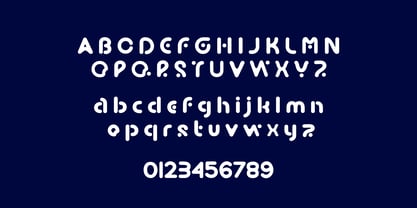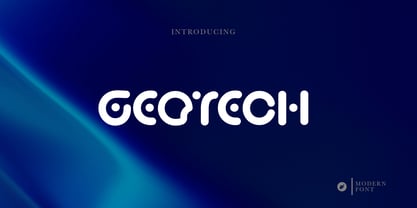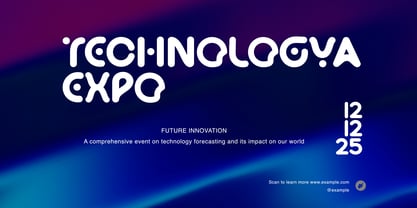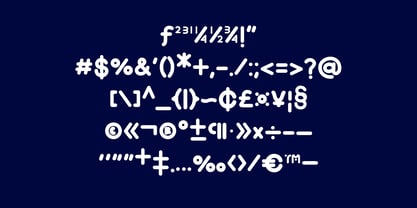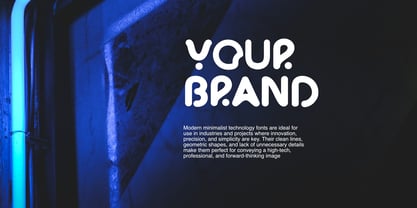
GEOTECH Futuristic
by WAP Type
The GEOTECH Futuristic Font Family was designed by Wahyu Aji Prasetyo and published by WAP Type. GEOTECH Futuristic contains 1 styles. More about this family
This modern, minimalist technology font is suitable for various design needs that want to convey a futuristic, innovative, and clean impression. Here are some examples of its use:
1. Technology startup logos
2. UI/UX for applications and websites
3. Posters or banners for technology events
4. Branding for electronic or digital products
5. Futuristic presentation titles
6. Gadget or AI product packaging design